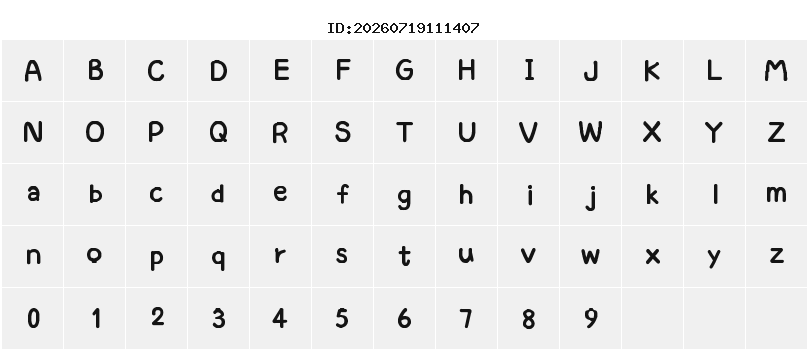
也字工厂fitfitda打工熊 Preview
• Font Name: 也字工厂fitfitda打工熊
• Full Font Name: 也字工厂fitfitda打工熊
• Manufacturer: 也字工厂
About 也字工厂fitfitda打工熊.ttf
也字工厂fitfitda打工熊.ttf is a modern, elegant sans-serif font designed for ultimate readability and visual harmony. Perfect for branding, headlines, web design, and print materials.